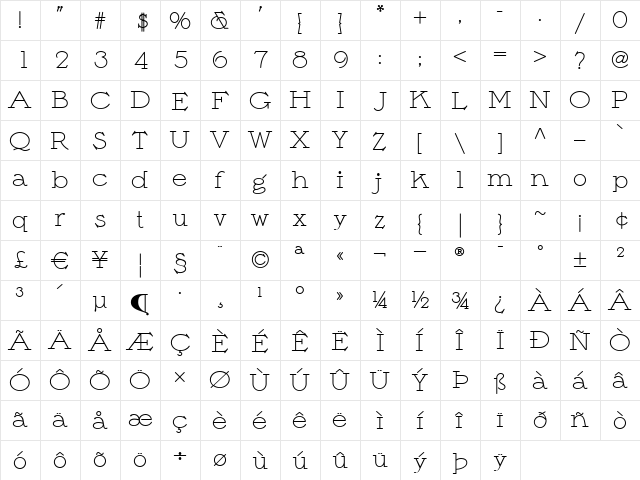
Saturday Morning Monotone NF Regular
Design Context for Saturday Morning Monotone NF Typeface
Saturday Morning Monotone NF brings the precise, column-aligned rhythm of monospaced typography to designs that value technical clarity and systematic order.
A natural fit for code editors, technical documentation, developer-focused branding, and terminal-inspired UI.
Pro Tip: Pair Saturday Morning Monotone NF with a proportional sans for UI contexts where code-style labels and regular body copy need to coexist.